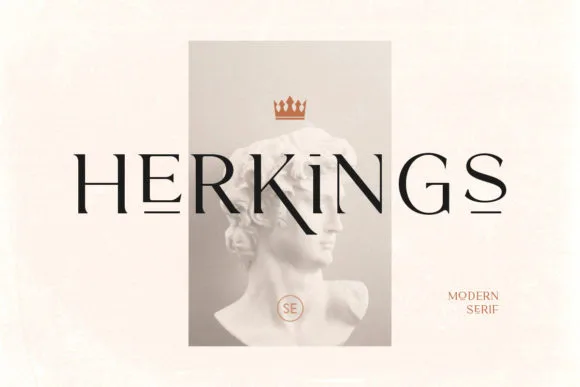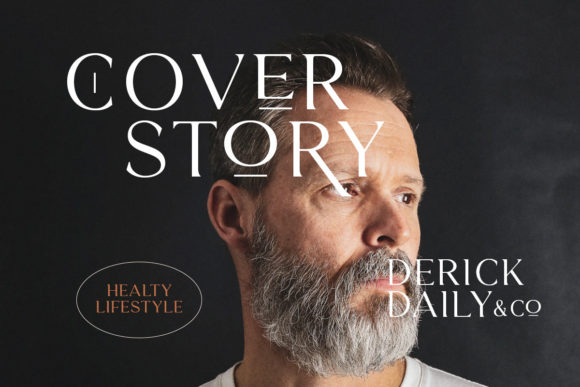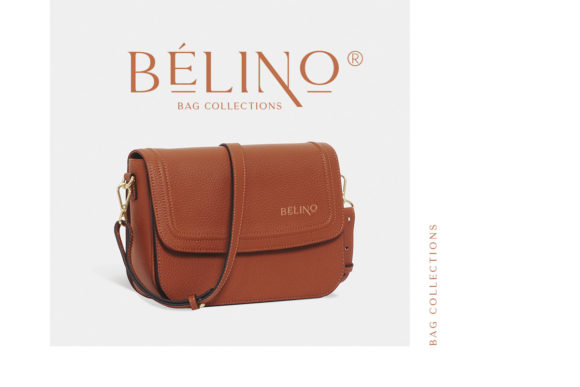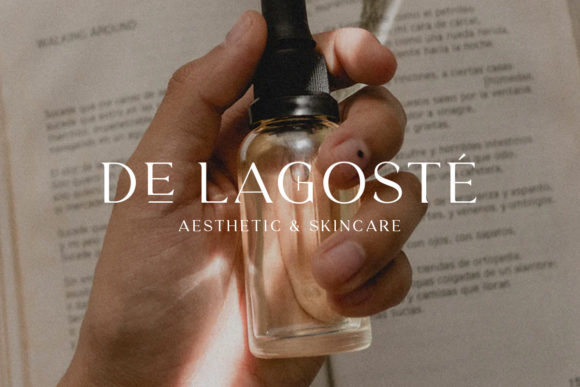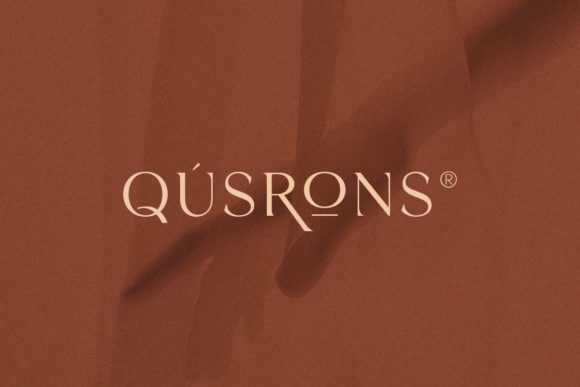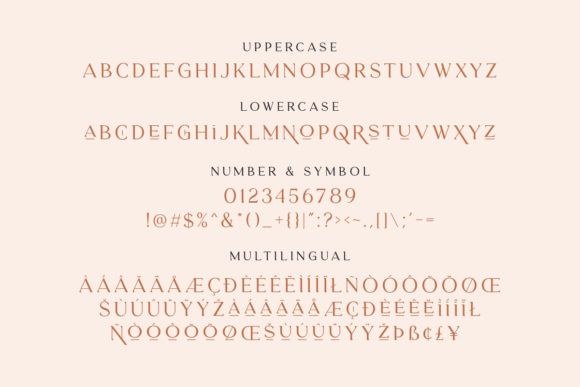
Herkings Font
HERKINGS FONT SPECIMEN
Herkings is a minimalist and modern slab serif font that’s versatile and unique. It can be used for branding, logos, business cards, apparel designs, movies, magazines, and so much more!